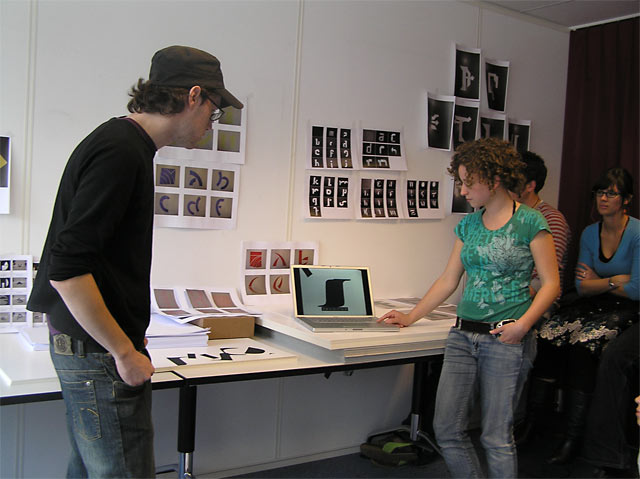
![]() Back to innocence, back to basics; welcome to Tangram. The 36 people strong student group couldn't wait to explore the unexplored field of the typographic Tangram. 12 groups of 3 people. A 15 x 15 cm divided into 7 parts. 7 parts to make 26 different letters. The mission was clear, no time to waste. All groups approached the quest on their very own way, to find a surprising, individual and unpredictable solution. No computers, just plain paper and a knife. This workshop did not need any technical skills. Only logical thinking and dangerous ideas. Welcome to the first results. ![]() ![]()